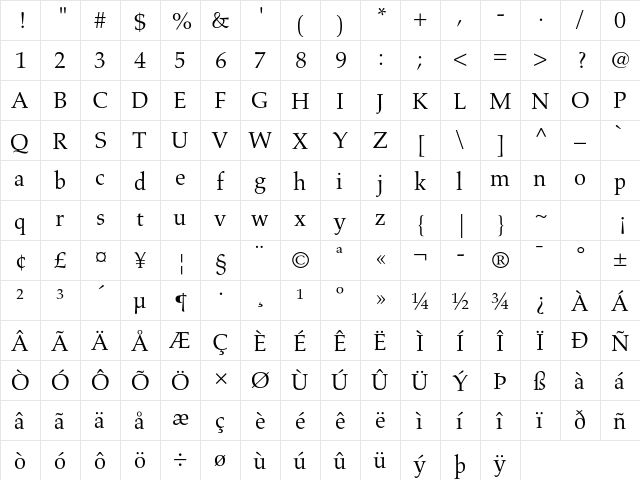
Aldus LT Std Roman
| Designer | Hermann Zapf |
Design Context for Aldus LT Std Typeface
Aldus LT Std takes a measured approach to typography — its balanced proportions and neutral character make it a reliable workhorse for both digital and print work. Its slender proportions lend an understated elegance to any composition.